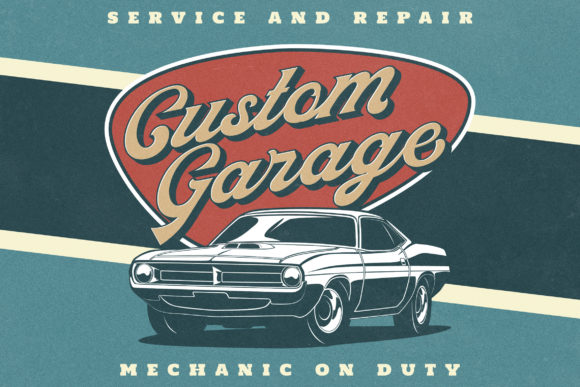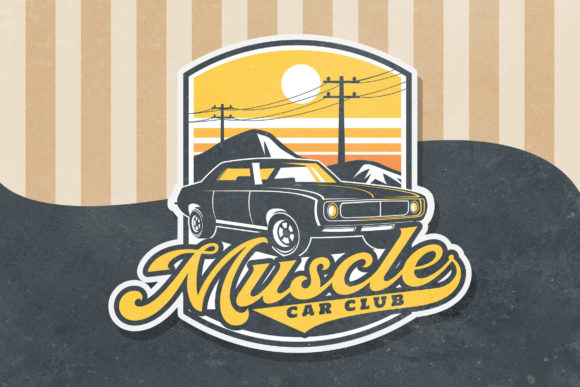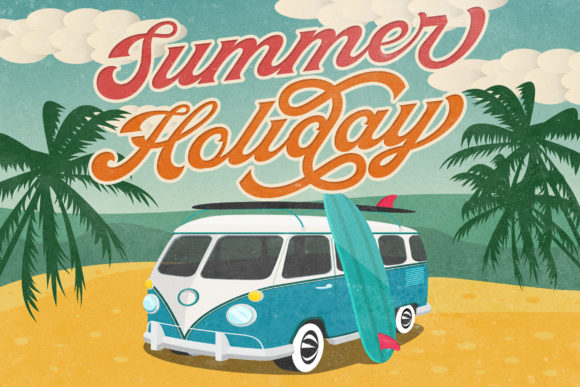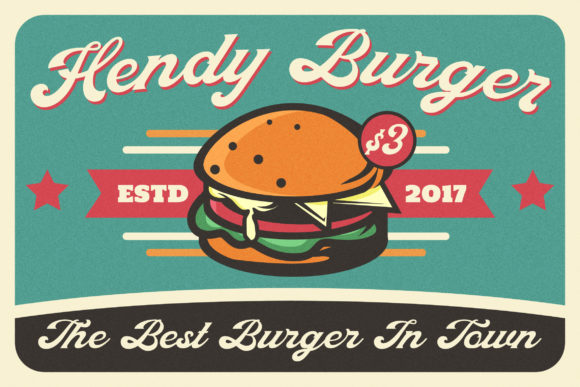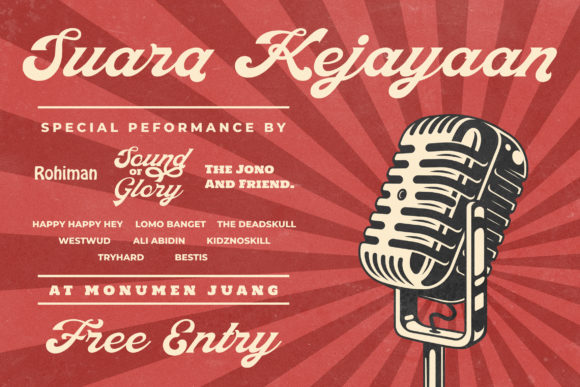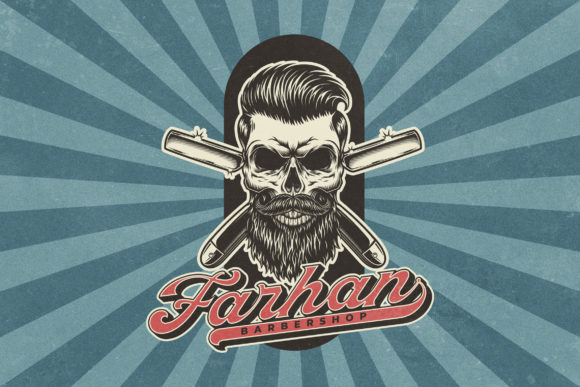
Fedian Font: Elevate Your Designs with a Stylish and Retro Touch
Are you looking for a font that can add a bold and confident touch to your designs? Look no further than Fedian Font, a gorgeous and bold handwritten font that’s perfect for headlines, logotype projects, and more. With its stylish and retro aesthetic, Fedian is sure to make your designs stand out from the crowd.
A Strong and Dynamic Font
Fedian Font is crafted to give your designs a strong, confident, and dynamic feel. Its bold and expressive letterforms make it perfect for use in headlines, titles, and logotypes, while its flowing connections and swashes add a touch of elegance and sophistication. Whether you’re designing a logo, brochure, or website, Fedian is the perfect choice for adding a stylish and retro touch to your project.
Nostalgic Character and PUA Encoding
One of the standout features of Fedian Font is its nostalgic character, which adds a touch of warmth and personality to your designs. The font’s classic, handwritten aesthetic is reminiscent of a bygone era, making it perfect for use in designs that require a vintage or retro feel. And with PUA (Private Use Area) encoding, you can access all of the font’s glyphs and swashes with ease, giving you maximum flexibility and creative control.
Key Features of Fedian Font
- Bold and confident aesthetic: Fedian Font is crafted to give your designs a strong and dynamic feel.
- Retro and nostalgic character: The font’s classic, handwritten aesthetic adds a touch of warmth and personality to your designs.
- PUA encoded: Access all of the font’s glyphs and swashes with ease, giving you maximum flexibility and creative control.
- Versatile and user-friendly: Fedian is easy to use and integrate into your projects, making it perfect for designers and crafters of all levels.
- Use it for headlines and titles: Fedian is perfect for use in headlines and titles, where its bold and expressive letterforms can really make an impact.
- Experiment with swashes and glyphs: With PUA encoding, you can access all of the font’s glyphs and swashes, giving you maximum creative control and flexibility.
- Pair it with other fonts: Fedian pairs well with a range of other fonts, from clean and modern sans-serifs to elegant and sophisticated scripts.